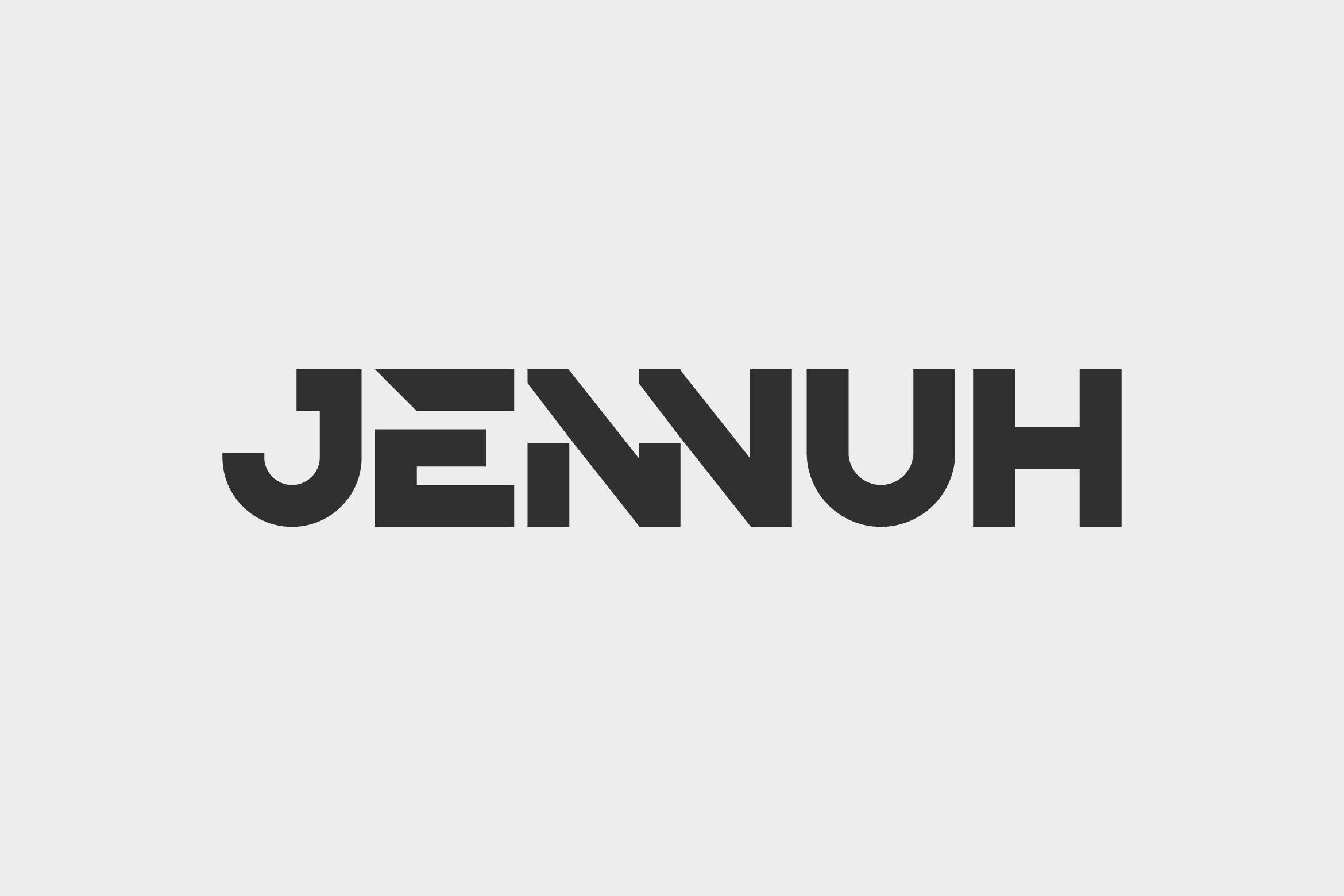
- Jennuh Powerful Sans Serif Font
Jennuh is a powerful and contemporary sans serif font designed to make a lasting impression. With its thick strokes, clean geometry, and strong letterforms, Jennuh is perfect for impactful headlines, logos, posters, sports graphics, packaging, and branding projects that demand attention.
Its bold and confident structure ensures excellent readability while adding a modern, professional aesthetic to your typography. Ideal for both print and digital use, Jennuh delivers clarity and strength, making it a versatile choice for dynamic and statement-making designs.
The font includes uppercase and lowercase letters, numerals, punctuation, multilingual support, and stylistic alternates for enhanced customization and creative flexibility.
Command attention with Jennuh — the bold sans serif font that combines power, precision, and modern style in every letter.